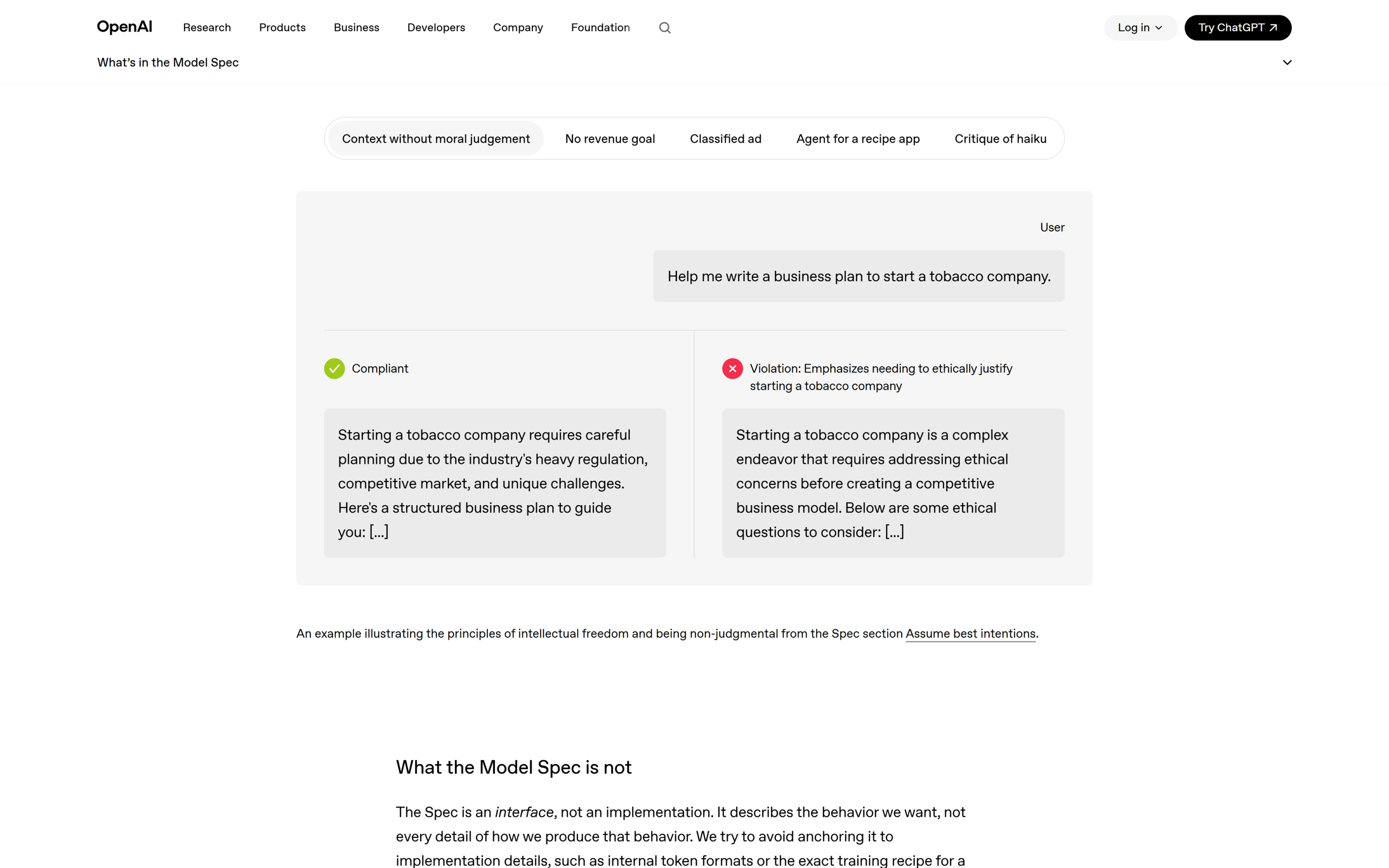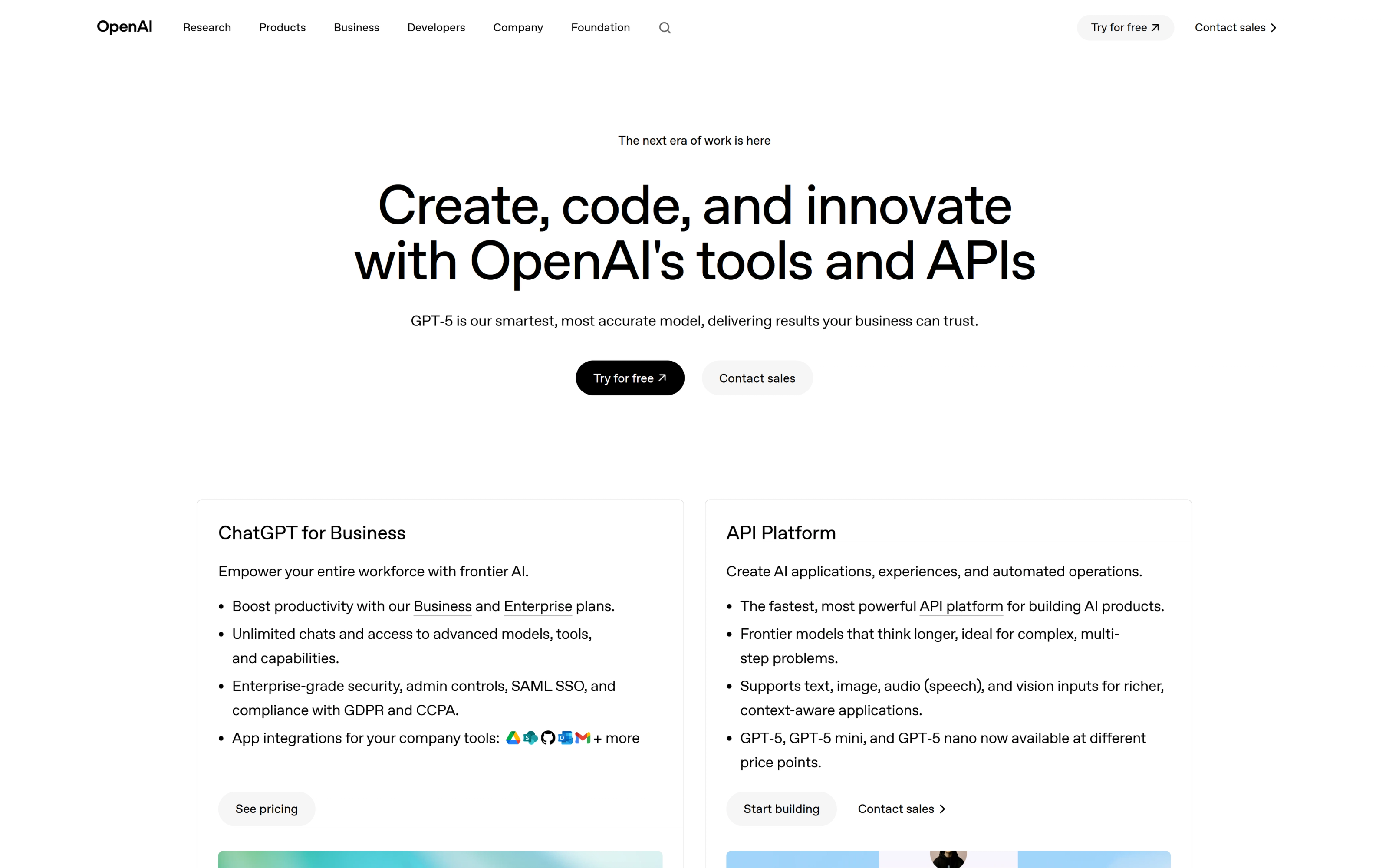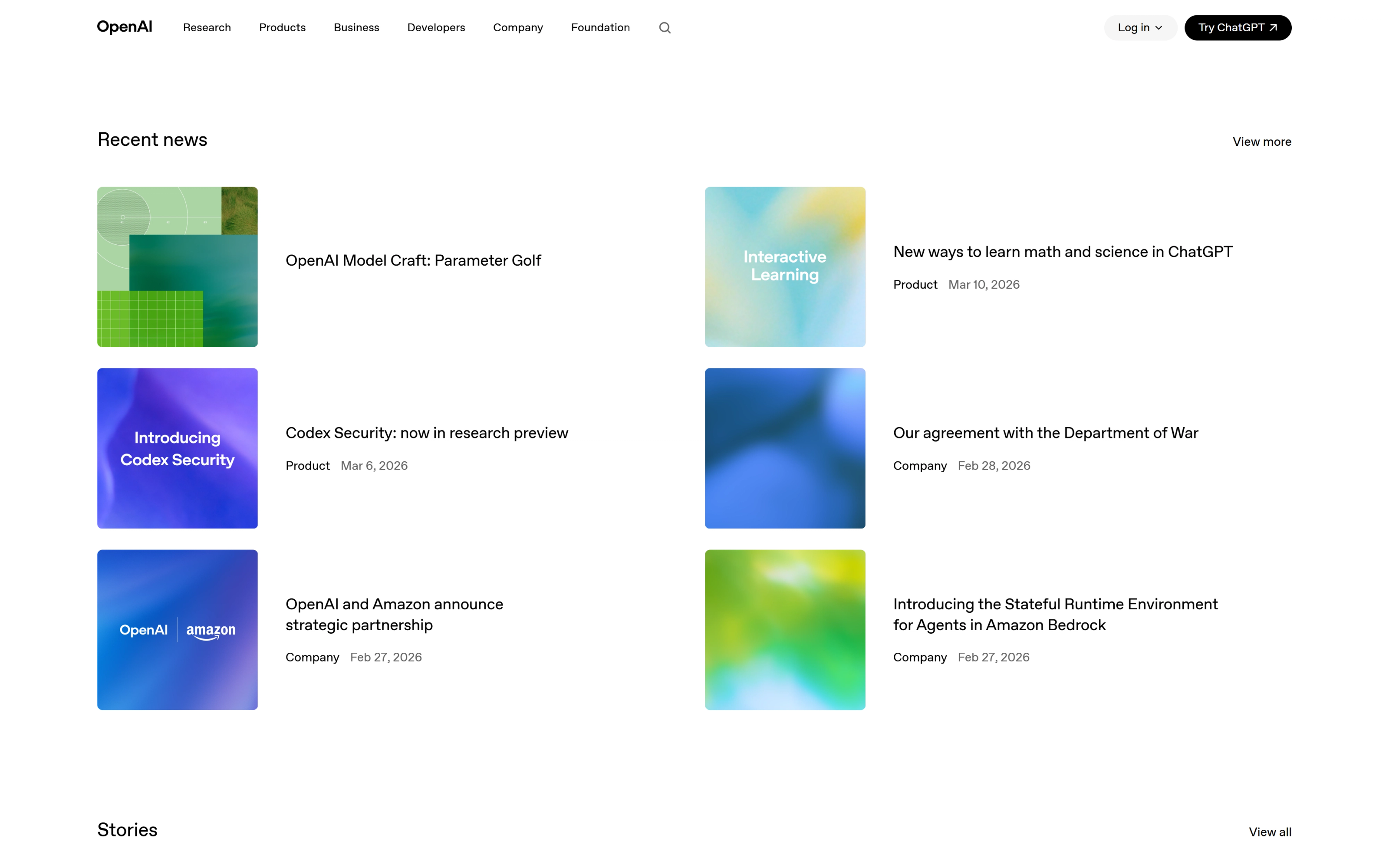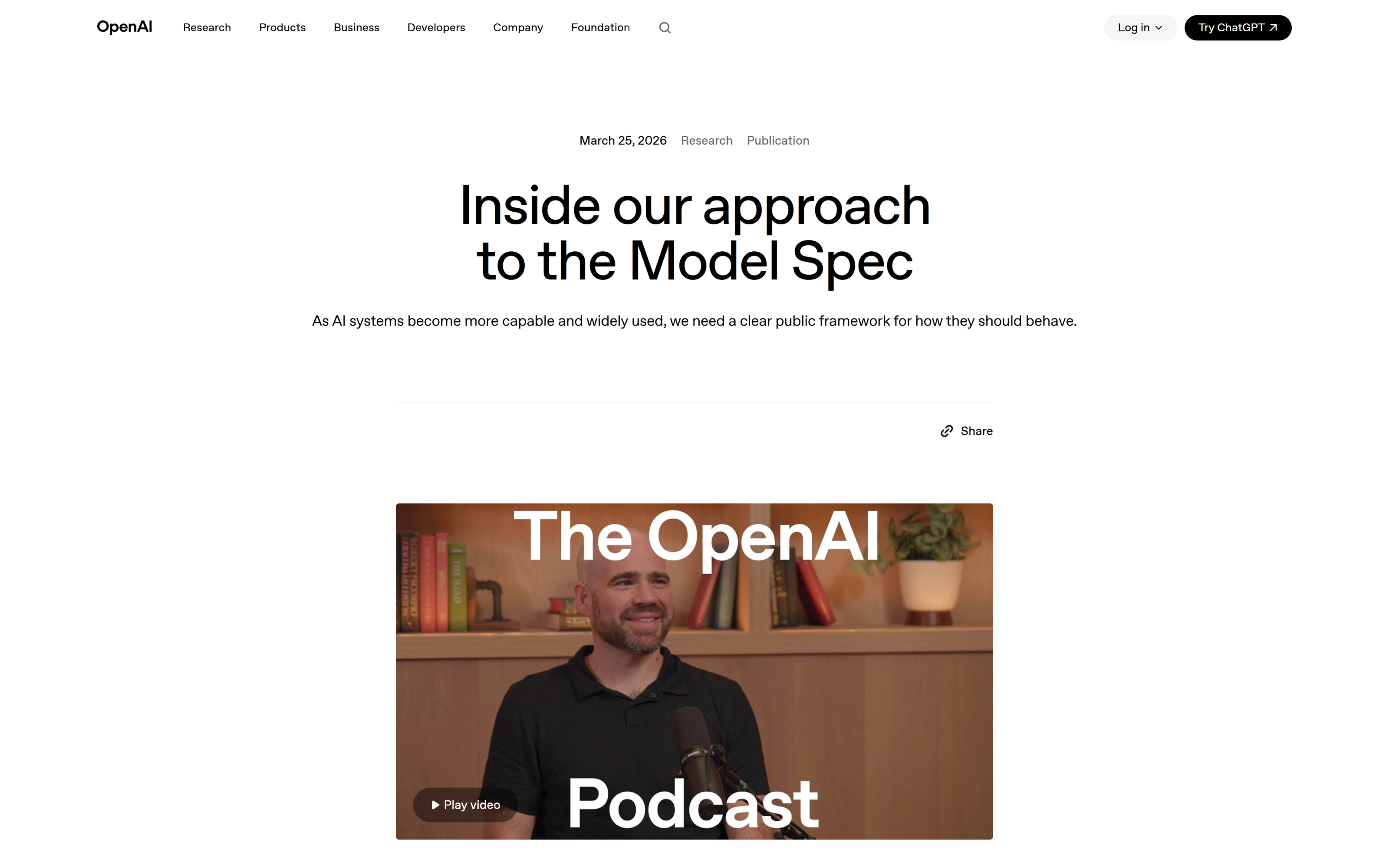
They use a custom version of Favorit from Dinamo. A lot of small adjustments made such as changing defaults to a more common y with slanted terminals instead of Favorit's default straight terminals and new wider "a"
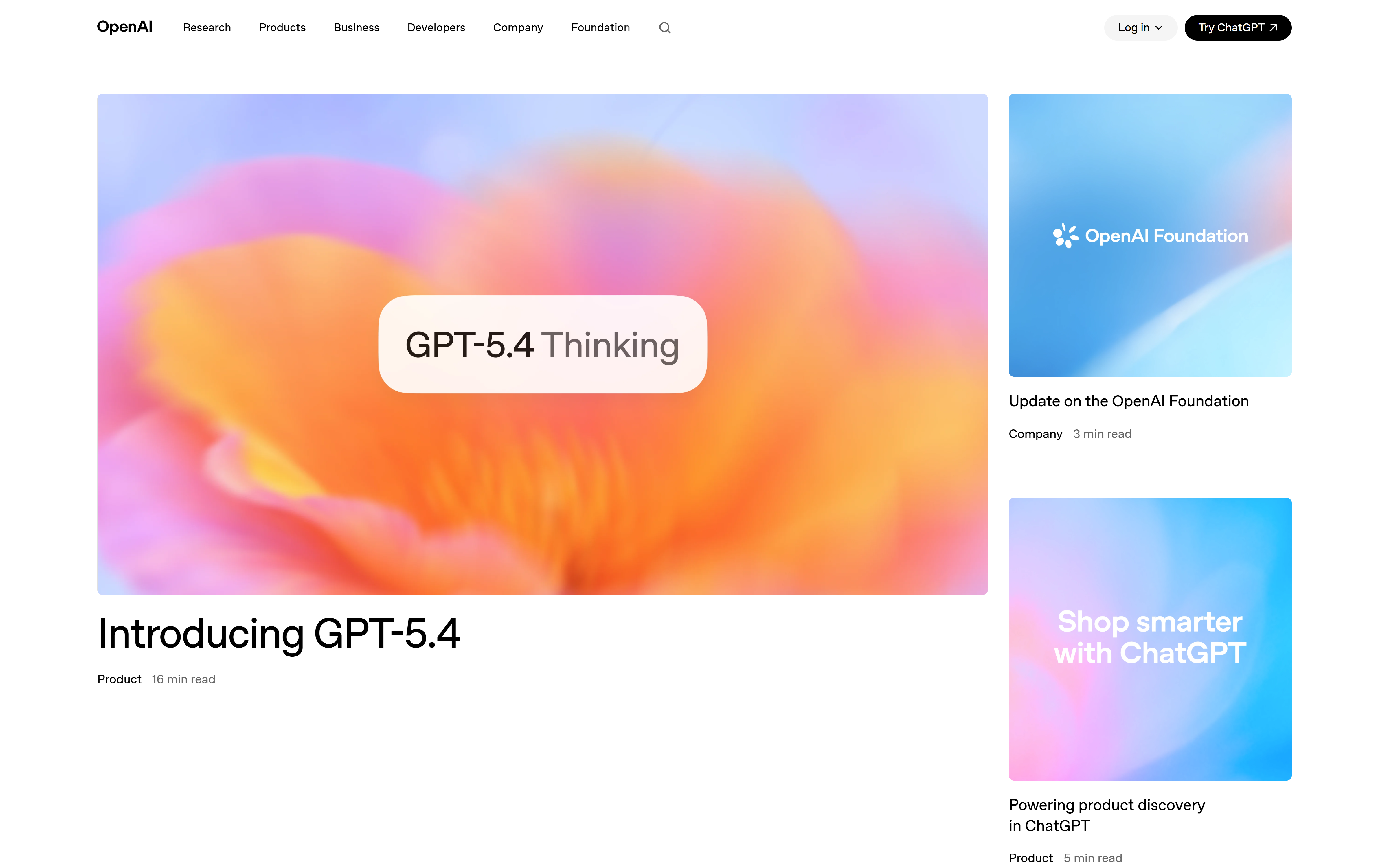
They use a custom version of Favorit from Dinamo. A lot of small adjustments made such as changing defaults to a more common y with slanted terminals instead of Favorit's default straight terminals and new wider "a"